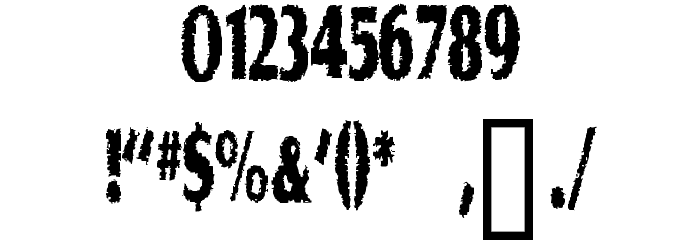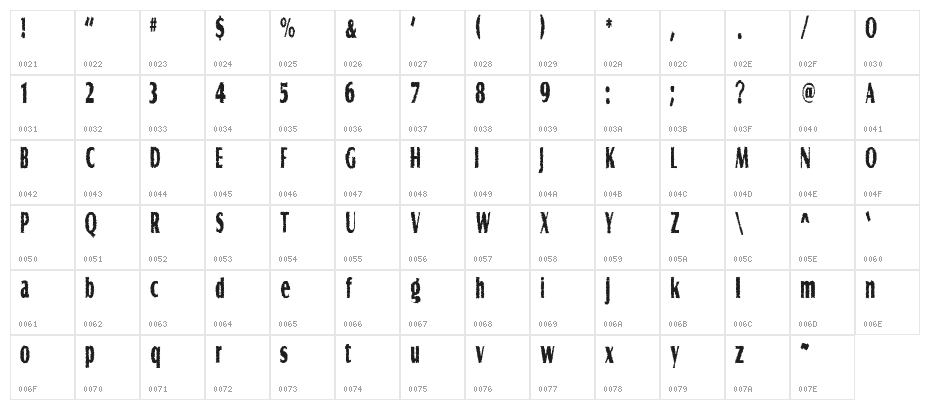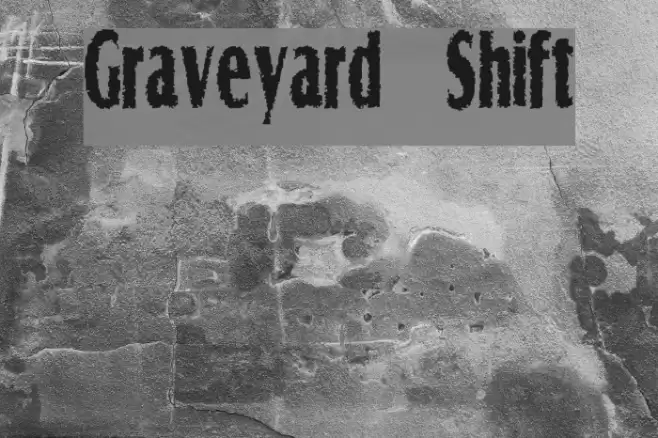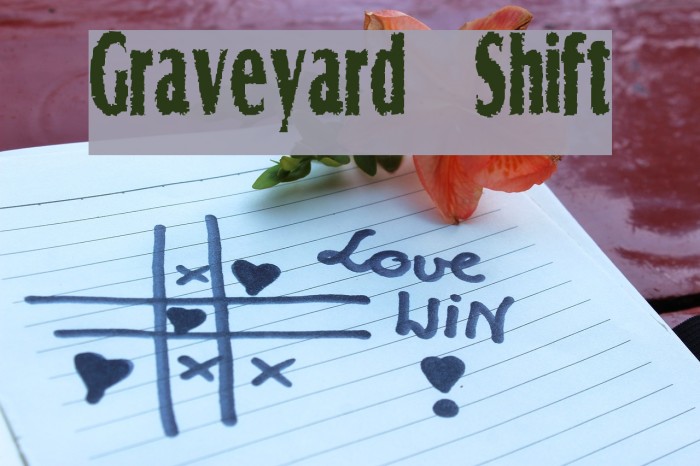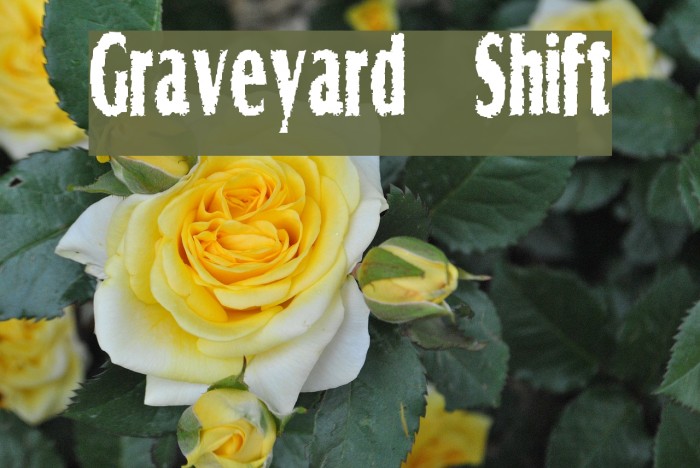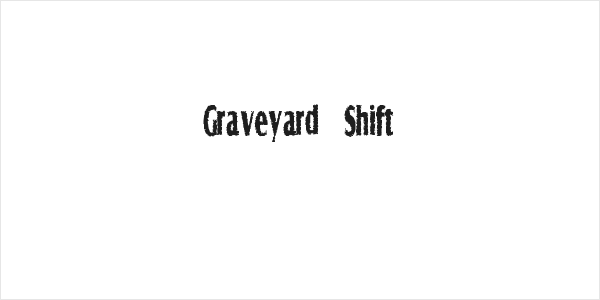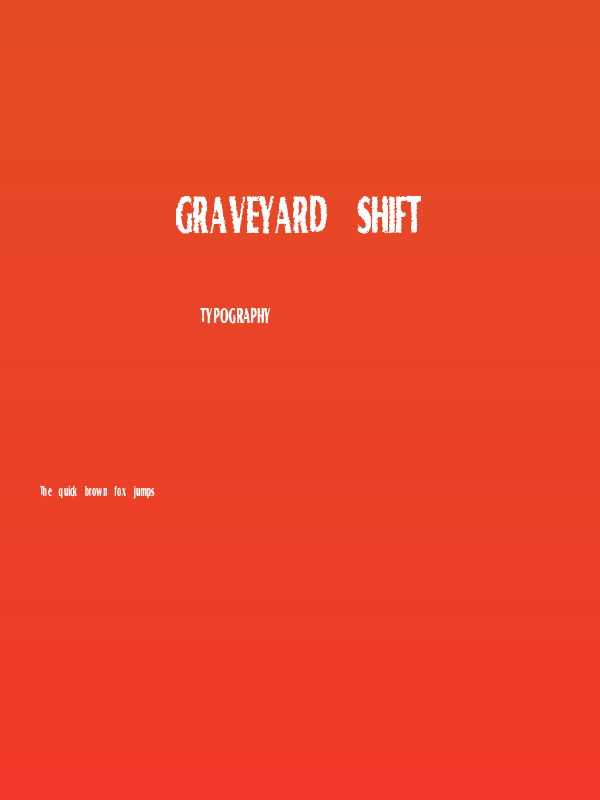
Graveyard Shift Font
Graveyard Shift Description
This font features a distressed, textured appearance that gives it a rugged and worn look, reminiscent of vintage or horror-themed designs. The characters are bold and slightly irregular, adding to the eerie and unsettling aesthetic. The uppercase and lowercase letters maintain a consistent style, with jagged edges and a rough finish. Numbers and special characters follow the same design principles, ensuring a cohesive look across all text elements. This font is ideal for projects that require a dramatic and impactful visual presence.
Overall StyleVintage
Proposed ProjectsIdeal for horror-themed posters, Halloween invitations, vintage advertisements, and edgy graphic designs.